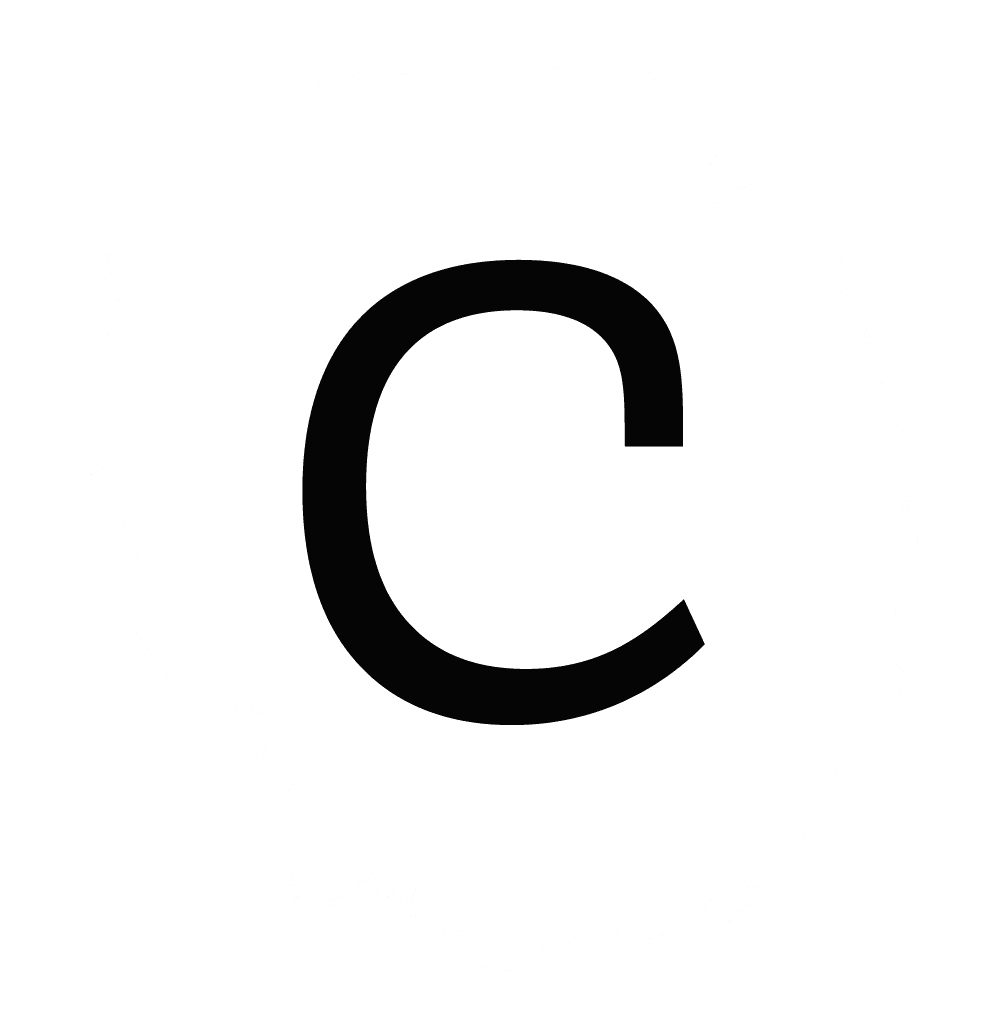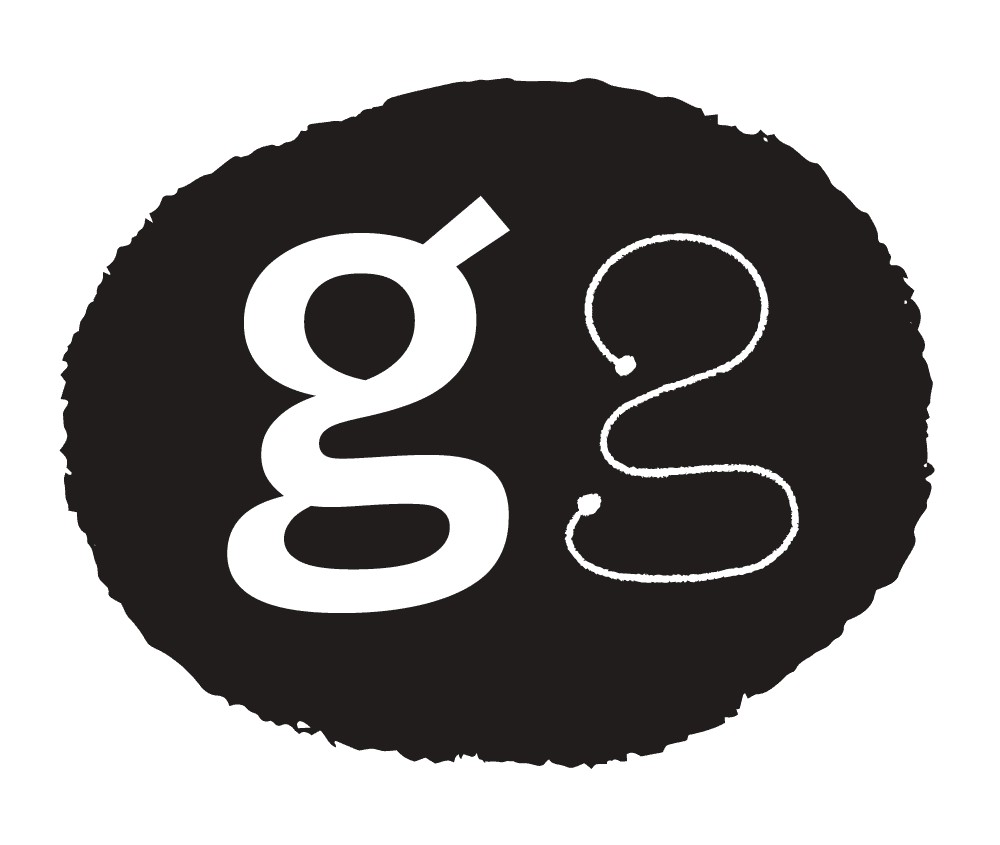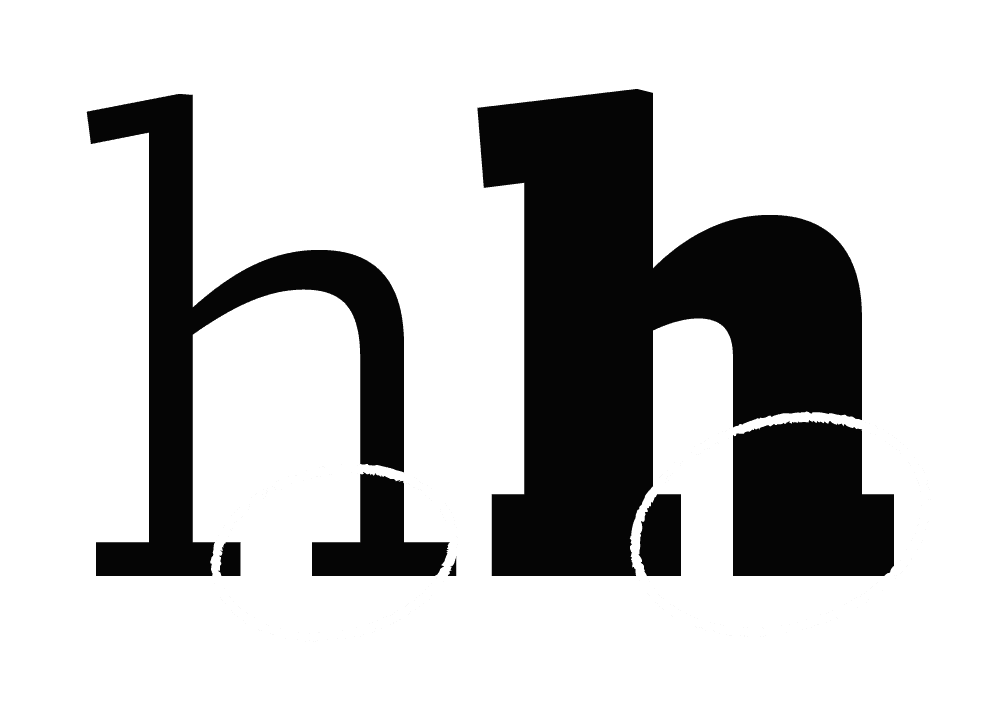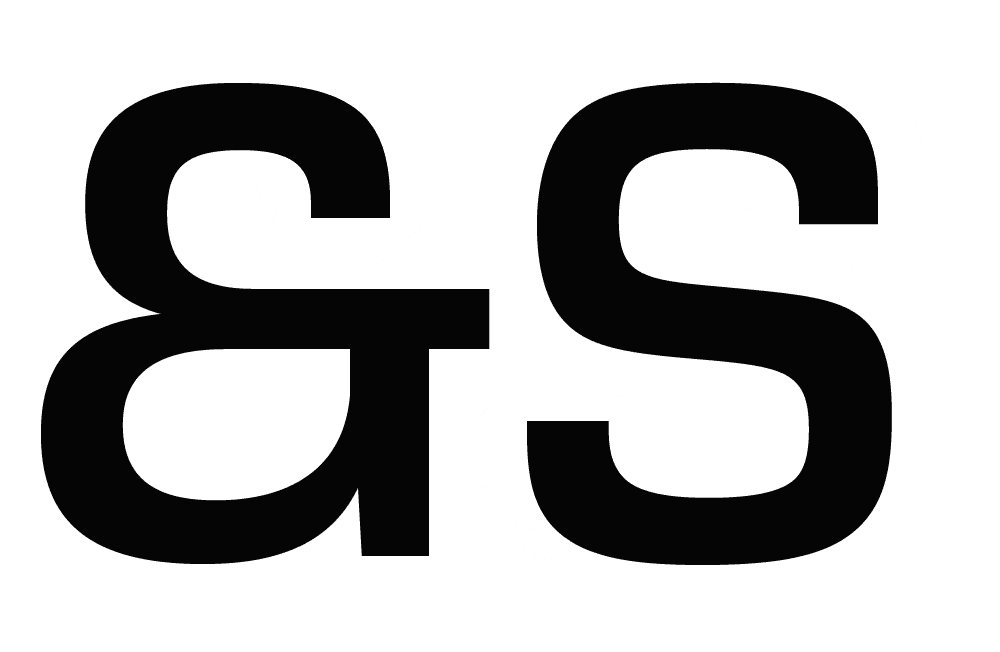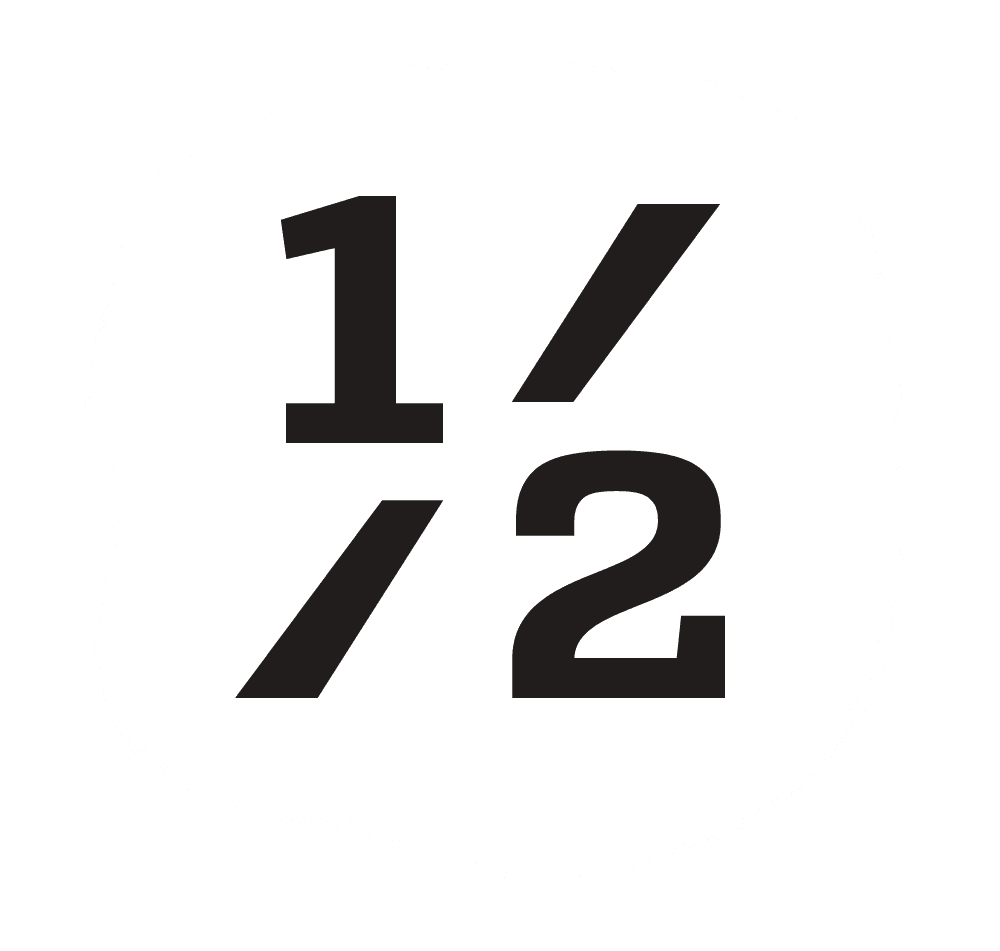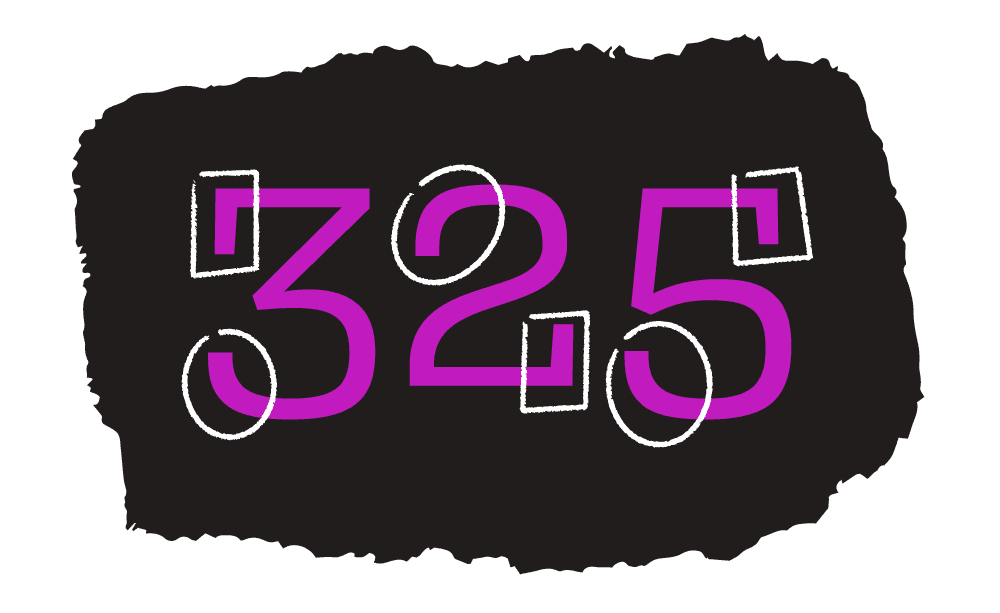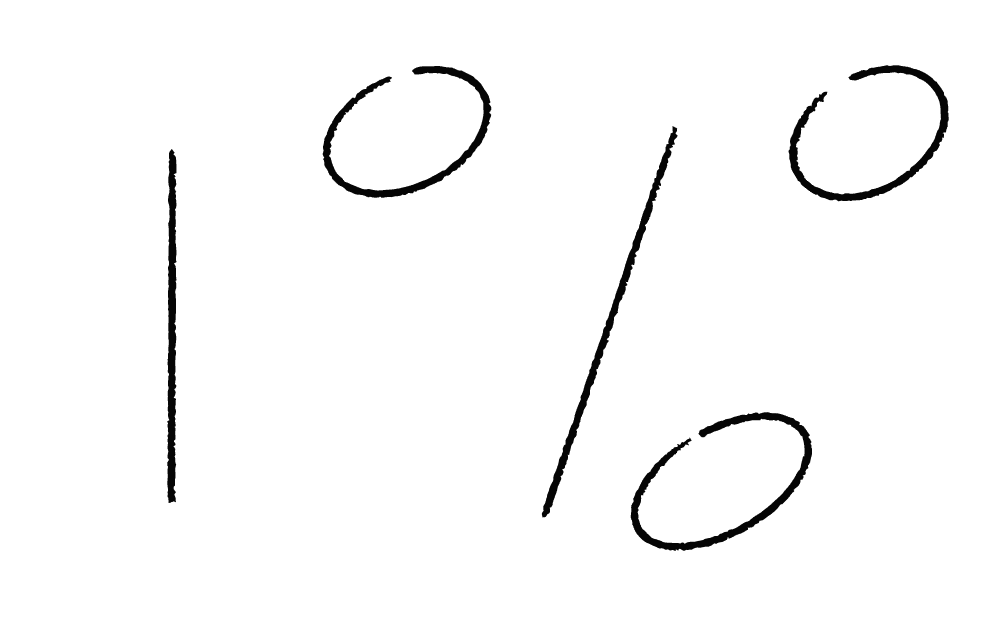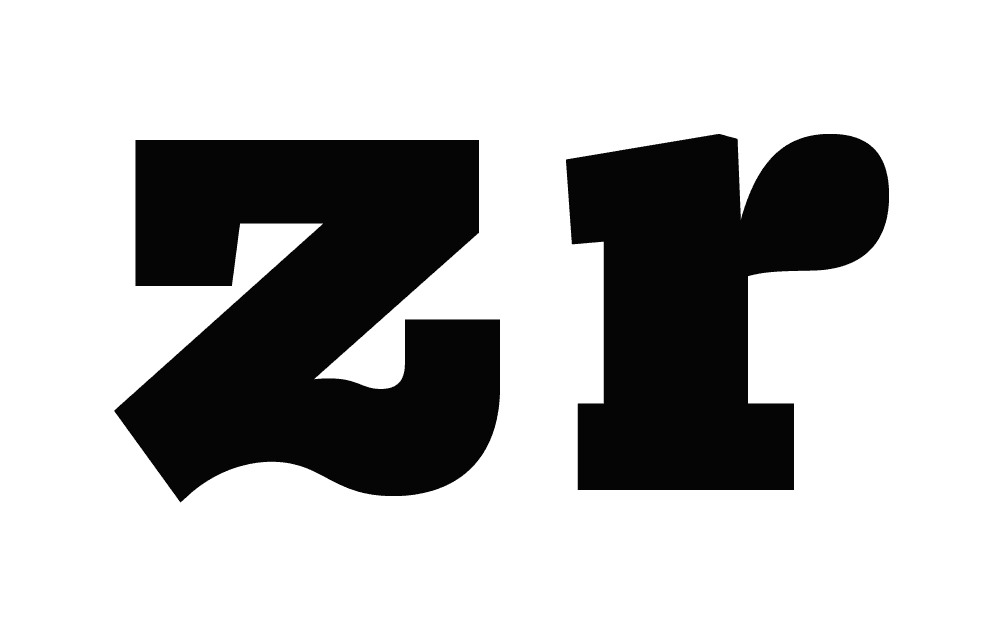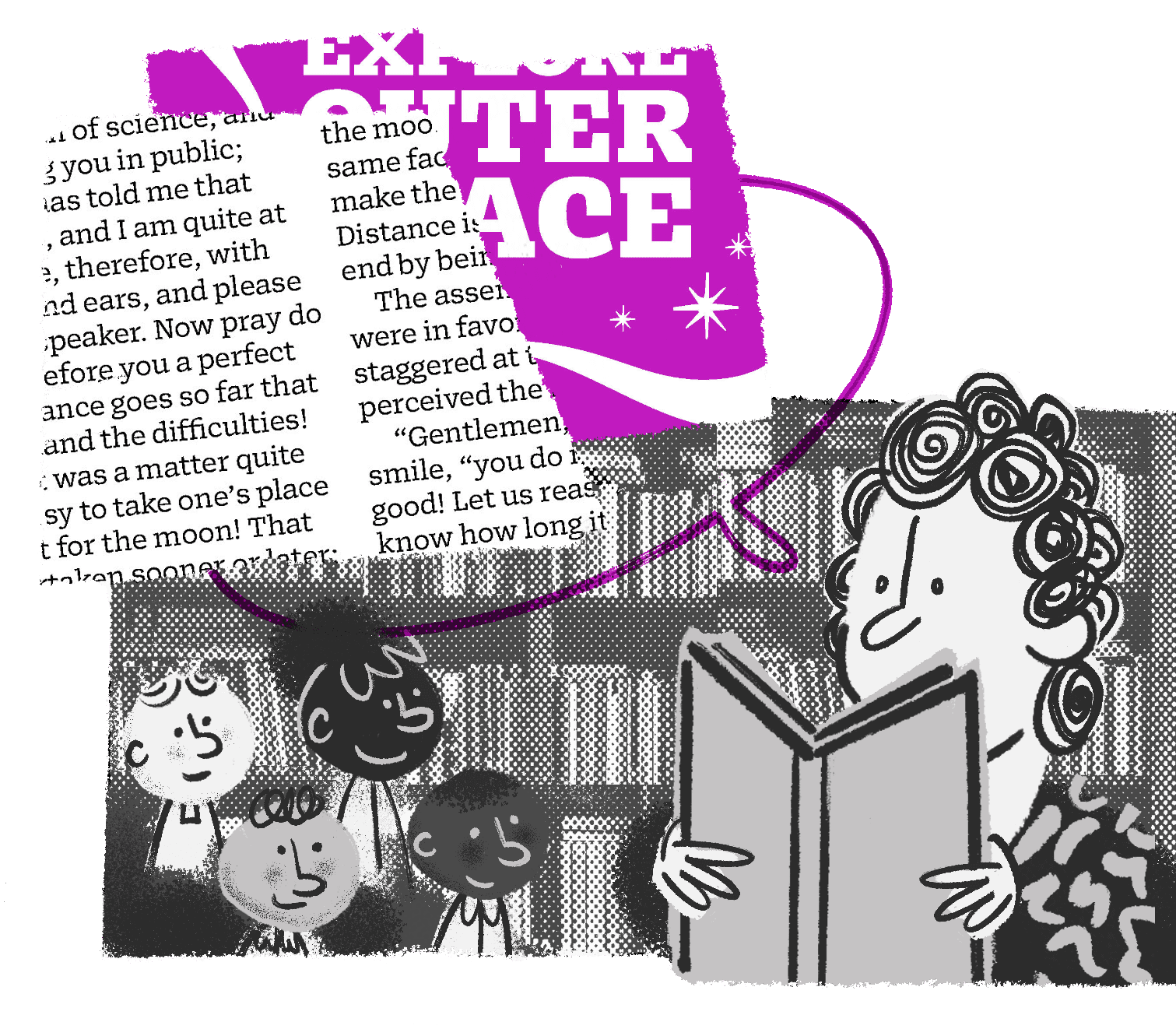
Bezzia
A new evolution of the slab serif. Bezzia was inspired by the entomology collections at California Academy of Sciences. Imbued with academic gravity and timeless style, Bezzia brings natural brilliance to any project.
8 Weights
Matching Italics
16 Total Styles
Case Punctuation
Lining & Old Style Figures
Tabular Figures
Math & Currency
Dynamic Fractions
Circled Figures
Directional Arrows
Supports 200+ Languages
Bezzia has slab serifs. Here are some of them!
Bezzia uses a mixture of shapes to produce a typographical texture that is full of life.
Bezzia has a fun construction for the letter ‘c’.
Bezzia has an unusual construction for the letter ‘g’. You might not notice at first, but the bowl and tail are one continuous shape.
Bezzia’s number drawings have a nice mix of sharp ‘beak’ terminations, and round ‘hook’ terminations, representing the mixture of round and sharp details throughout the design.
Some glyphs change construction between Bezzia’s roman (upright) and italic fonts.
When Bezzia gets bold enough, it starts ‘forgetting’ a serif on the interior of some letters, to help protect the negative space trapped inside the letter.
Bezzia has ‘split bar’ fractions, allowing the numerators and denominators to appear larger, and for the fraction itself to take up less horizontal space.
Bezzia has some ‘square-ish’ curves. Here are some of them.
Bezzia’s italic has some ‘f-ligatures’, carefully controlling the way in which certain pairs with the ‘f’ glyph are constructed. Here’s one of our favorites.
Bezzia’s italic has a ‘descending f’, adding careful differentiation between the roman and italic.
Features
Directional Arrows
Circled Figures
Decorative Quotes
Case Punctuation
Dynamic Fractions
Ligatures
Tabular Figures & Math
Oldstyle & Lining Figures
Roman & Italic
Time Notation
Slashed Zero